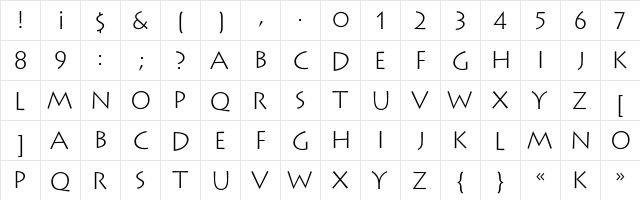
LithosC Regular
Design Context for LithosC Typeface
LithosC is a composed and adaptable typeface that performs quietly and consistently across a wide range of design contexts.
Pro Tip: Pair LithosC with a font of contrasting weight or personality to build a more expressive typographic hierarchy.